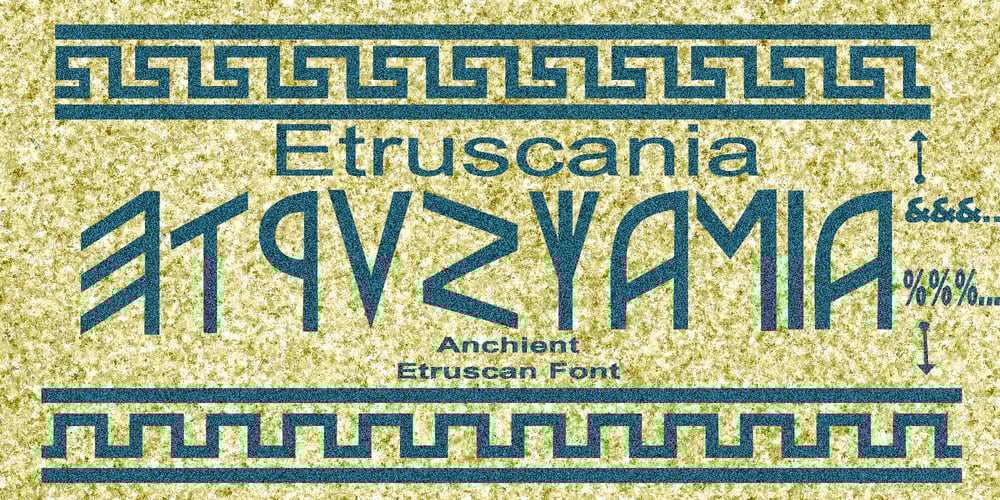
Etruscania Font Family was designed by bsmbang wisudyantoro and published by Beewest Studio. Etruscania contains 1 styles and family package options. Etruscania font is base on Anchient Etruscan Alphabet. The Etruscan alphabet is an Ancient Italian alphabet used by the Etruscans, an ancient civilization of the central and northern lands, to write their language, from around 700 BC to around 100 AD. The Etruscan alphabet took inspiration from the Phoenician alphabet.The earliest known Etruscan abecedarium inscribed on an ivory wax tablet frame, measuring 8.8×5 cm, was found at Marsiliana near Grosseto, Tuscany in Italy. It dates from around 700 BC.